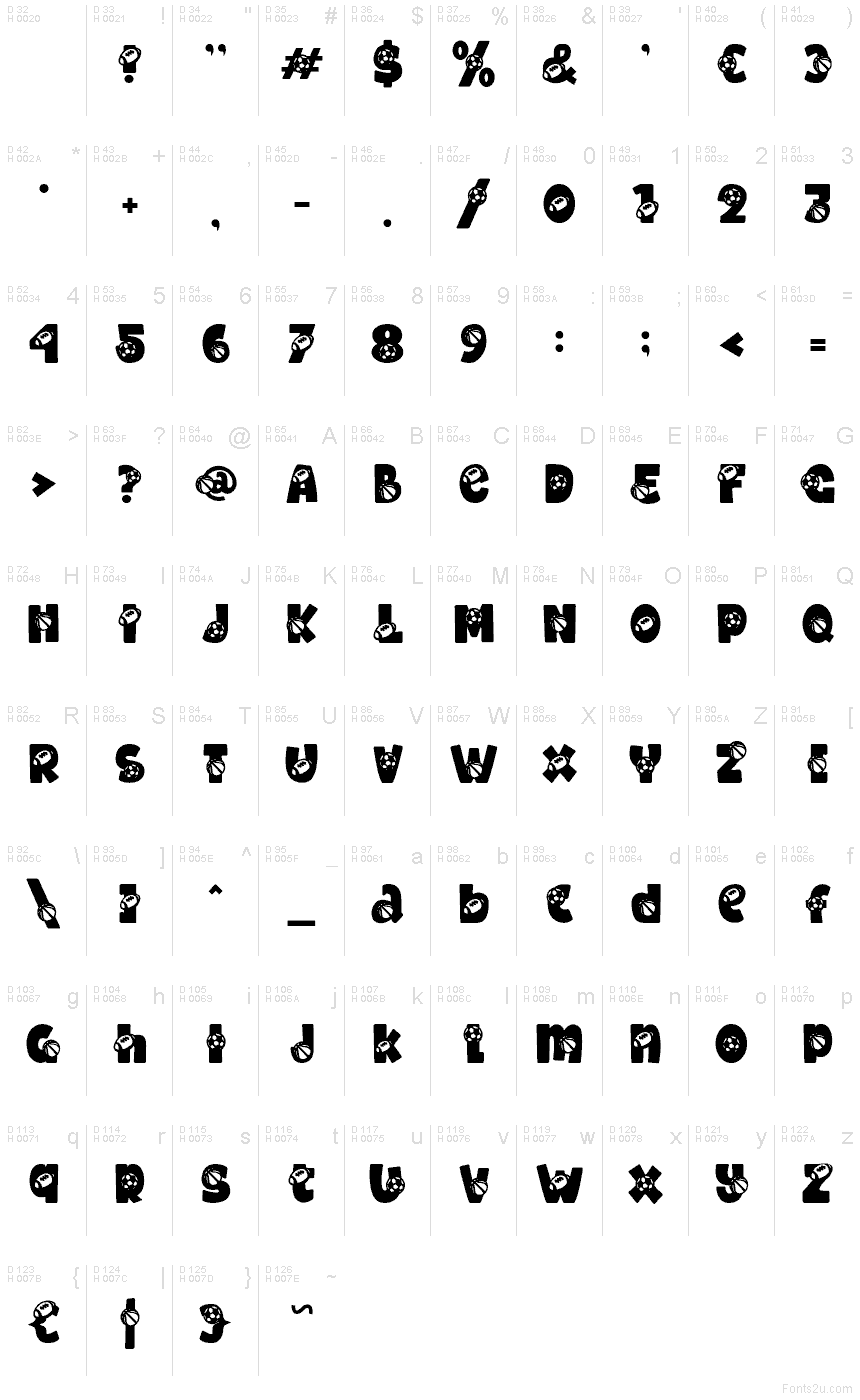
Study Symbol Sport
Study Symbol Sport font by PutraCetol Studio is a free decorative display font with a bold style and whimsical appearance. Each of its letters contains an illustrative element with a retro vibe to give a playful composition every time you put any word or phrase down on paper. It carries forward the same themed aesthetic found in signage across major world sports events.